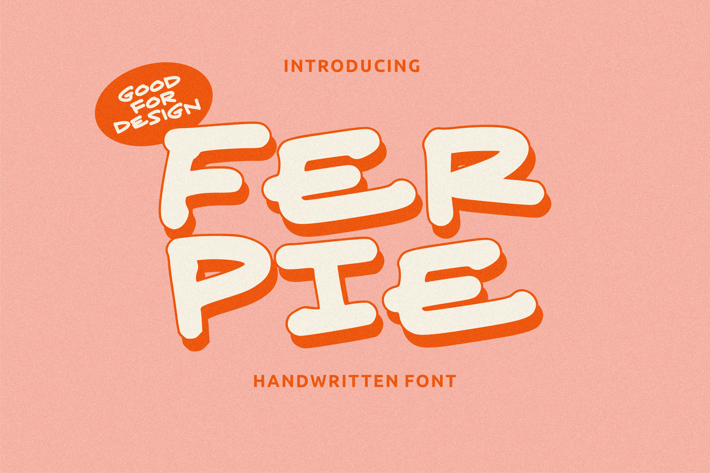
Ferpie Layered Font
Ferpie is a marker handwriting font with a solid character and is available in two characters Regular and Shadow, both of which when combined will be a great design for you, get it and start creating!